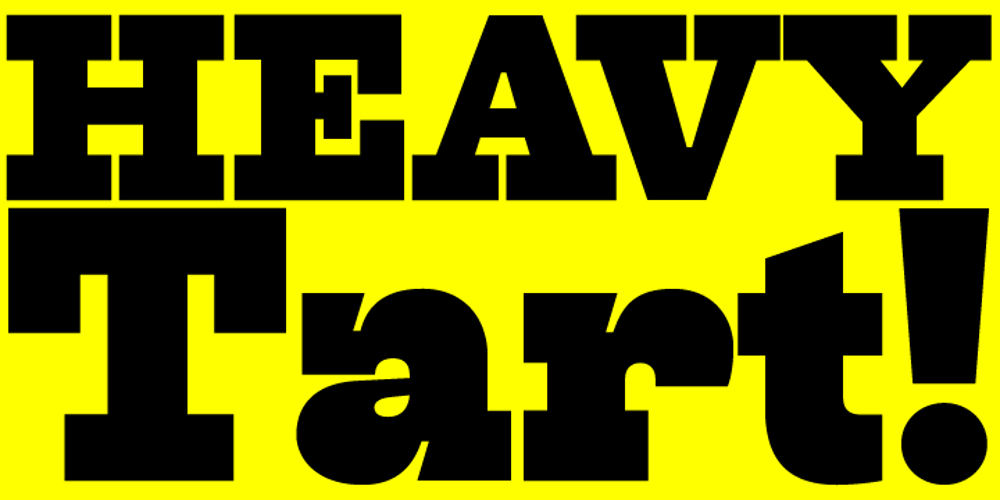
Tart Font Family was designed by Tomi Haaparanta and published by Suomi. Tart contains 1 styles and family package options. Headline font with extremely tight kerning with more than 1600 kerning pairs. Also with some discretionary ligatures and lining figures. That’s Tart. Sweet.